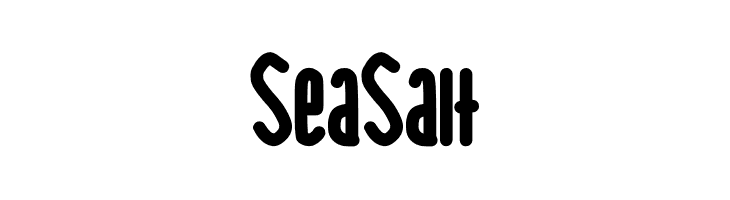
A bold, expressive script font with a modern yet classic appeal.
A playful, handwritten-style font with bold, rounded strokes and a dynamic appearance.
A graceful and elegant script font with flowing cursive lines.
A modern, rounded sans-serif font with a playful and approachable style.
A bold, expressive script font with a modern, handwritten style.
A bold, playful handwritten font with thick strokes and a casual style.
An elegant script font with flowing, cursive letterforms and a sophisticated appeal.
A bold, playful font with rounded, whimsical characters and subtle cutouts.
A lively and elegant script font with flowing, cursive letterforms.
An elegant, intricate script font with flowing, interconnected letters.
A sophisticated script font with elegant loops and swirls, perfect for luxurious designs.
A dynamic, cursive script font with flowing, artistic strokes.
An elegant and flowing script font with intricate loops and swirls.
A playful, hand-drawn font with outlined characters and a whimsical style.
An elegant and intricate script font with decorative uppercase and flowing lowercase letters.
A whimsical and decorative script font with intricate loops and flourishes.
An artistic script font with flowing, interconnected letters and decorative uppercase characters.
A dynamic and elegant script font with flowing, expressive letterforms.
A bold, modern font with thick strokes and tight spacing, ideal for impactful designs.
A flowing cursive font with a handwritten, elegant style.
A bold, modern cursive font with a clean, uniform appearance.
A bold, geometric font with a modern, industrial design.
An elegant and sophisticated script font with flowing, cursive letterforms.
An elegant script font with flowing, cursive letters and graceful swashes.
A bold, expressive script font with elegant, flowing letterforms.
A dynamic and elegant script font with flowing, cursive letterforms.
A dynamic and expressive handwritten font with fluid, cursive strokes.
A bold, geometric sans-serif font with an inline design and modern aesthetic.